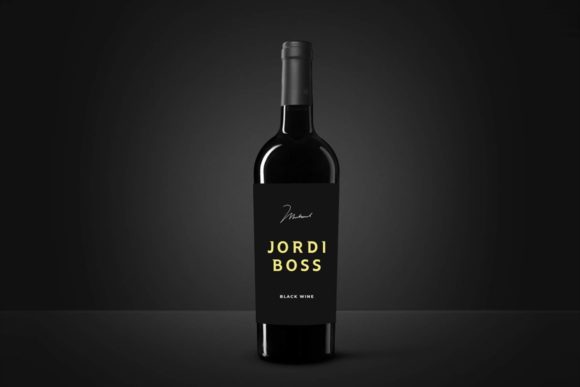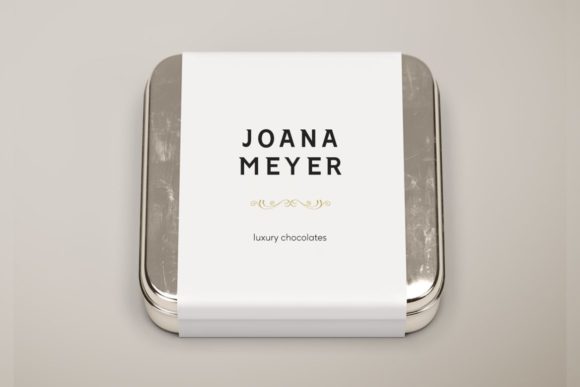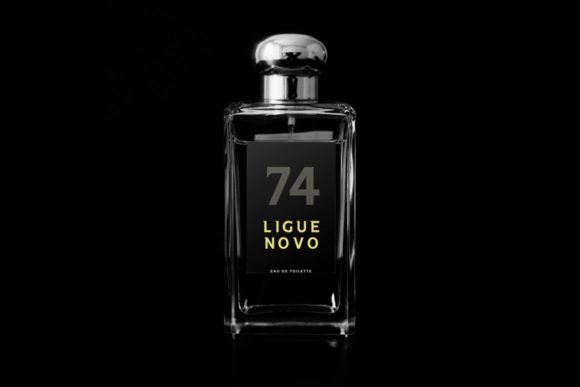
Transyl Font
TRANSYL FONT SPECIMEN
Transyl is a bold and modern looking slab serif font. Add this minimalist and techno styled font to your web designs, logos or pretty much anything that requires a smart, cool touch.